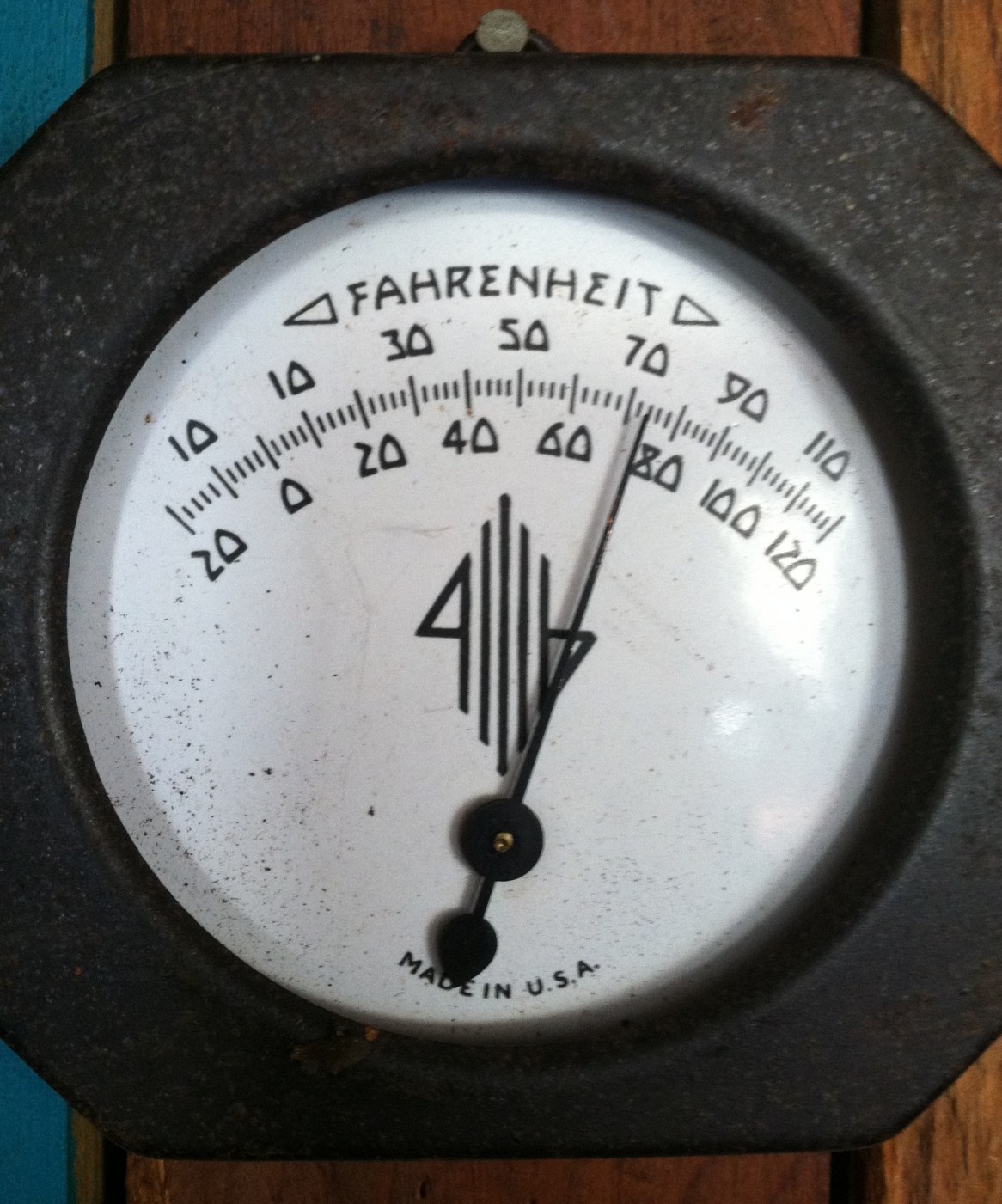
Beautiful Hand-Lettered Thermometer Type...
Several years ago, I was cross-country skiing in West Virginia. The ski hut had what appeared to be an old thermometer with what appeared to be hand-lettered type. It has a rustic, somewhat Scandinavian look to it—very angular and geometric...yet also very organic at the same time.
I'm curious if anyone here has ever seen this before? I'm assuming there is no digital version of this. I'd pay to have a digital font of this—it would be great project (possibly difficult, since all the characters aren't there).
I've attached a JPEG. Any thoughts?
I doubt it would result in a font someone would actually want to use.
One never knows. I think, for example, it wouldn’t look out of place on the album cover from some metal/industrial rock band. Or on the book cover of a steampunk fairy tale.